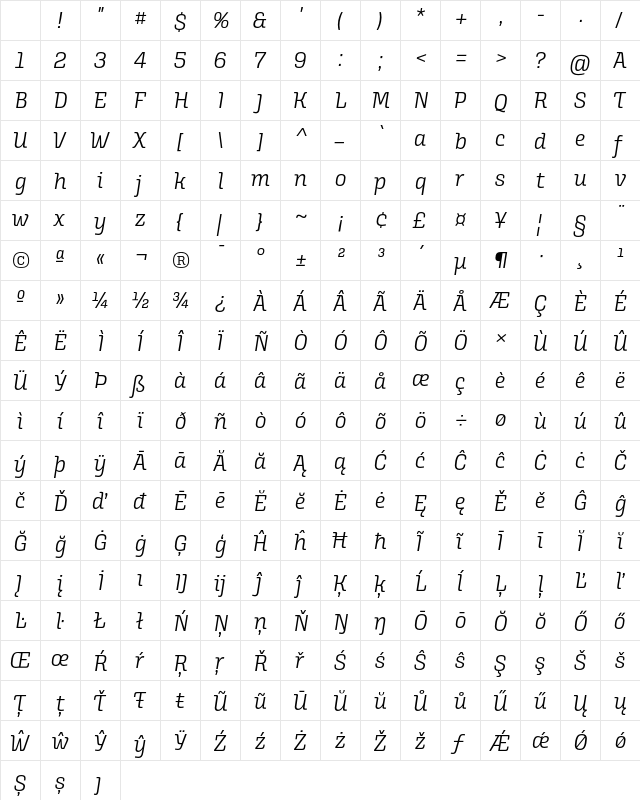
Complete Alianza Italic 300 glyph index. Displaying only characters natively supported by Alianza Italic 300 font.
Alianza Italic is a composed and adaptable typeface that performs quietly and consistently across a wide range of design contexts. The slanted form adds forward momentum and visual energy.
Pro Tip: Use Alianza Italic for emphasis, pull quotes, and subheadings where its slanted energy can add rhythm to the layout.